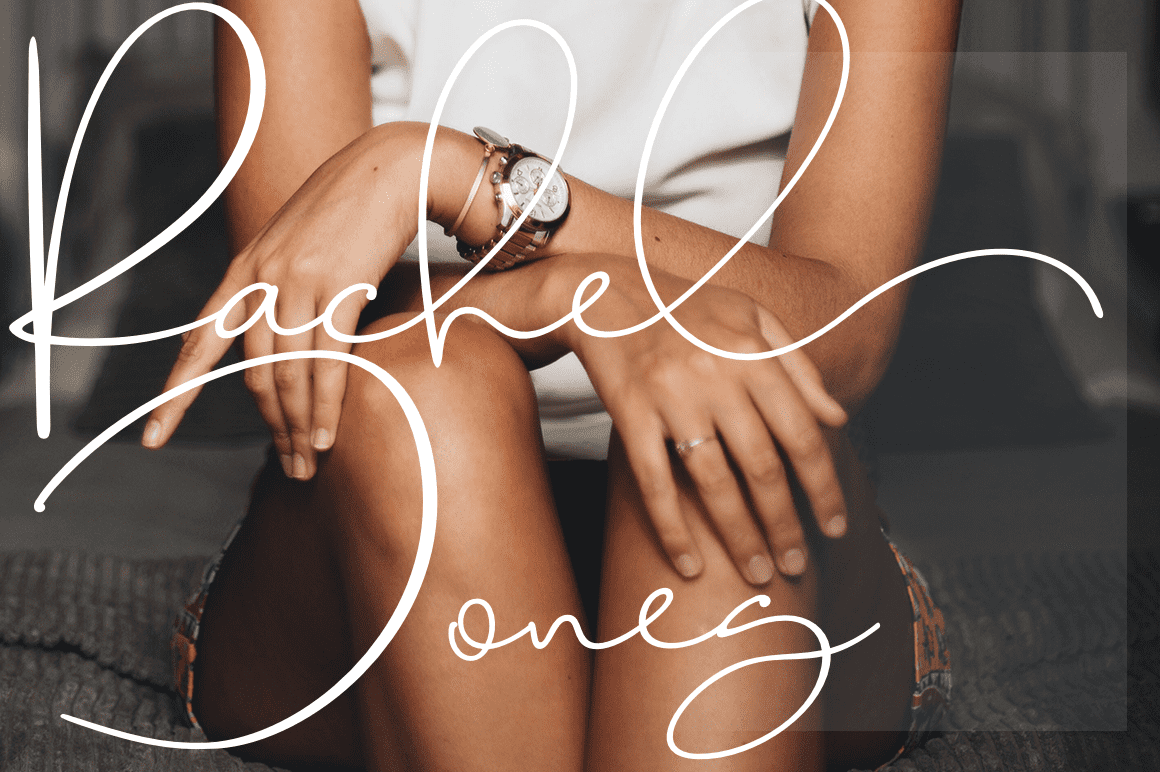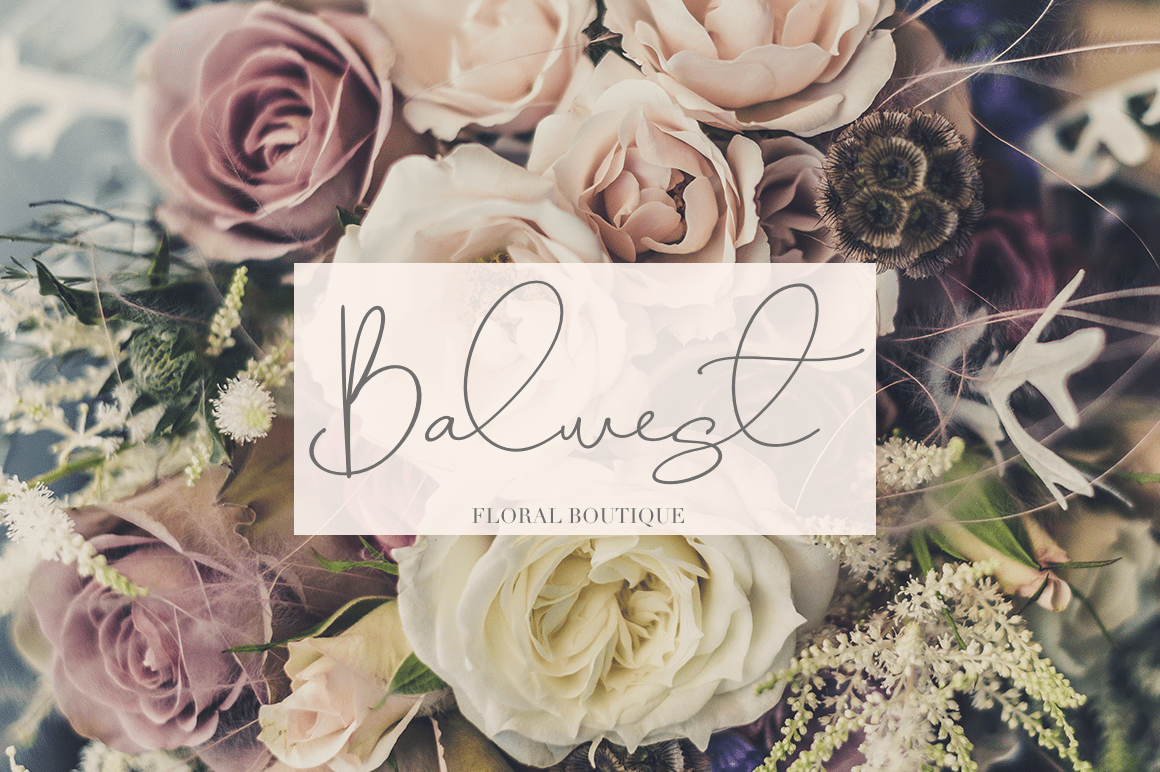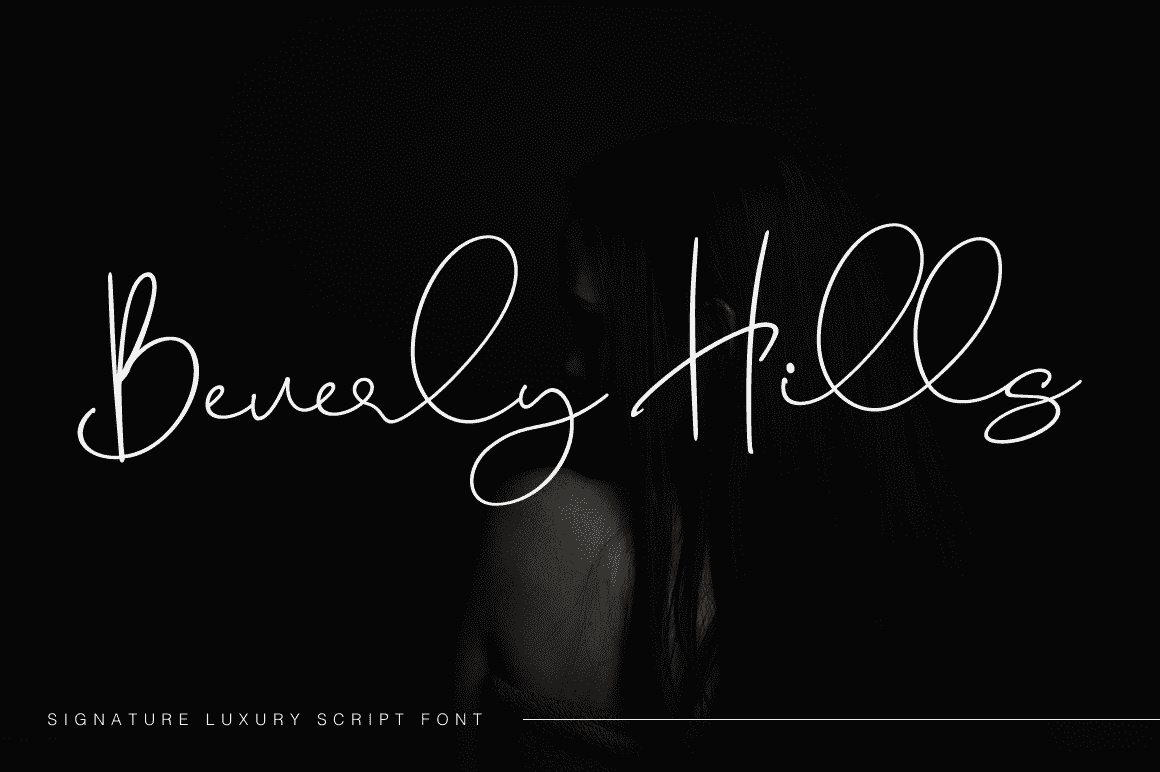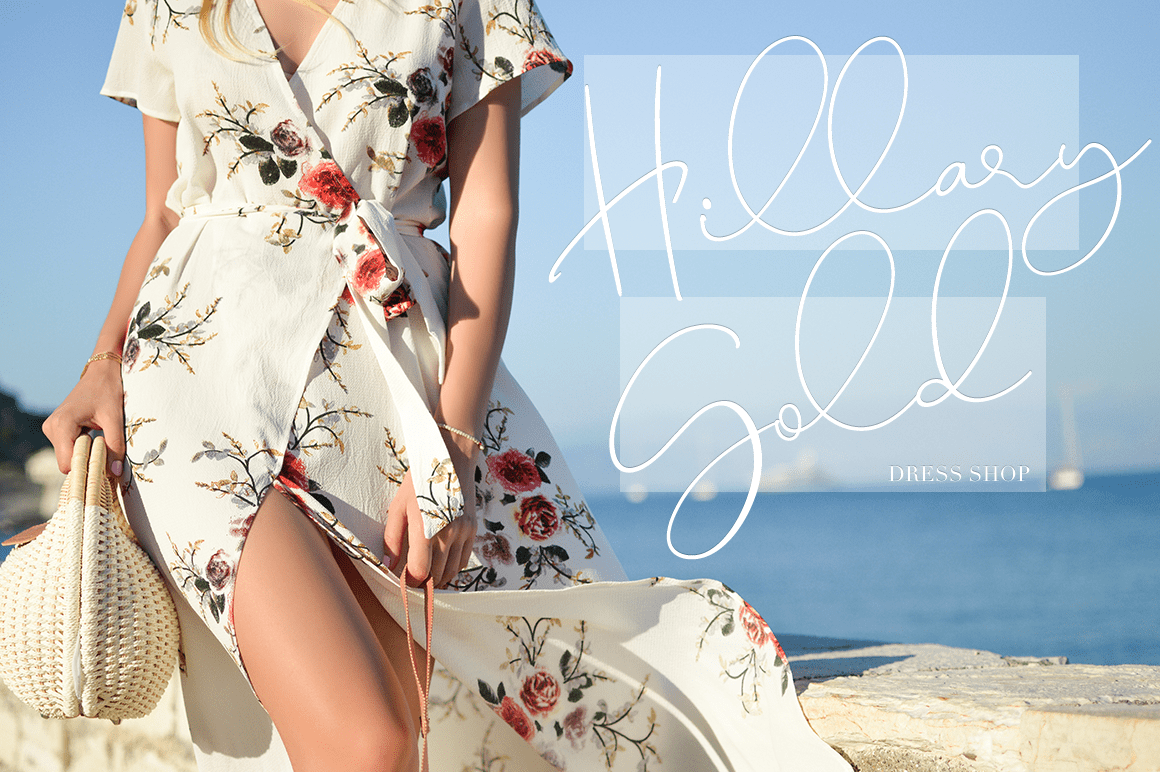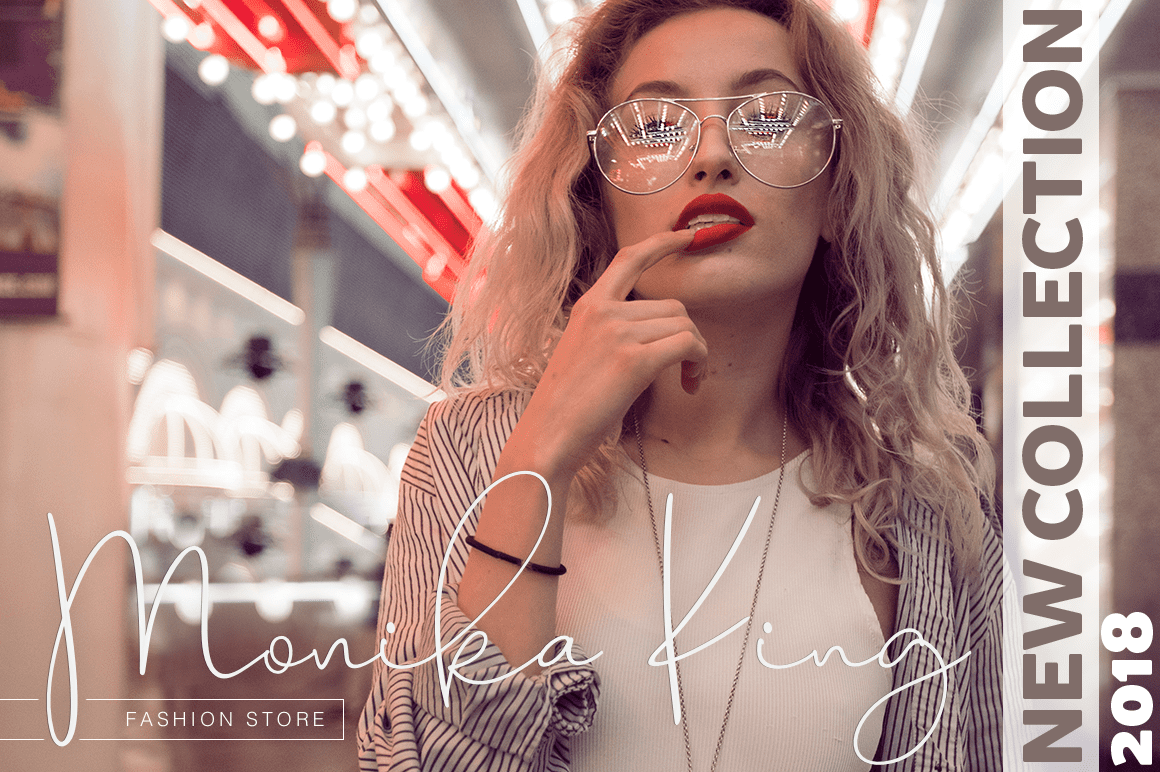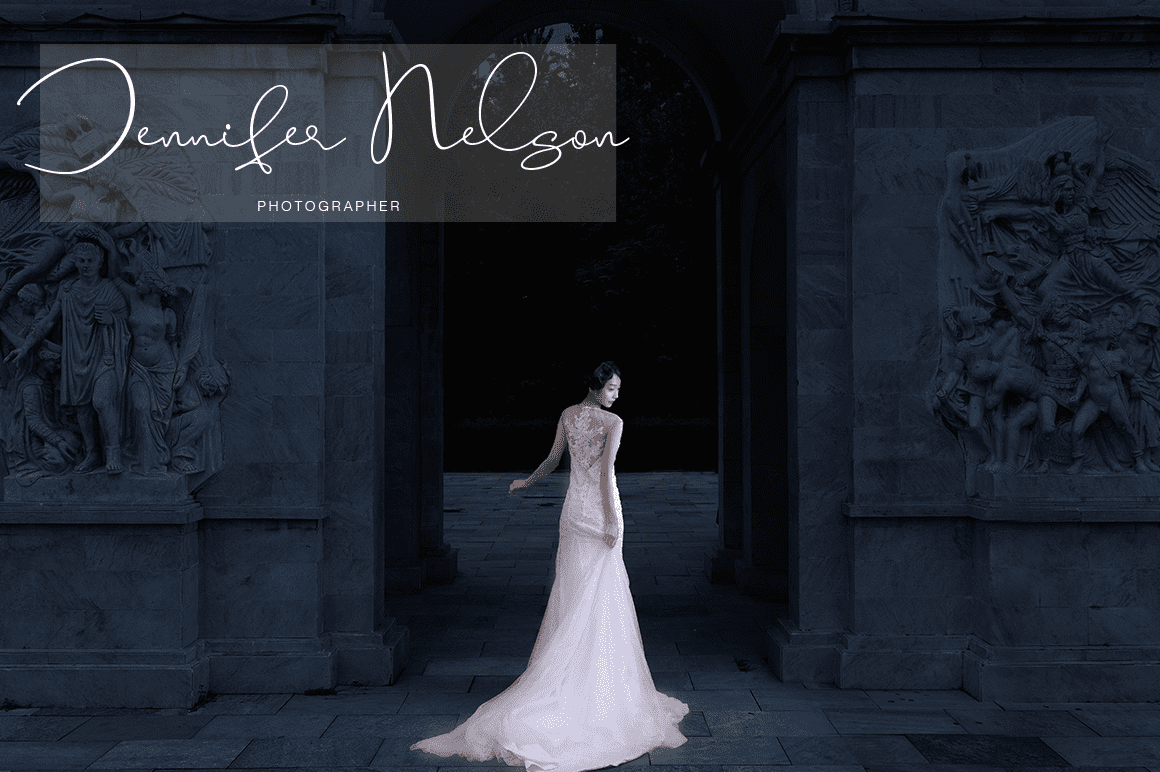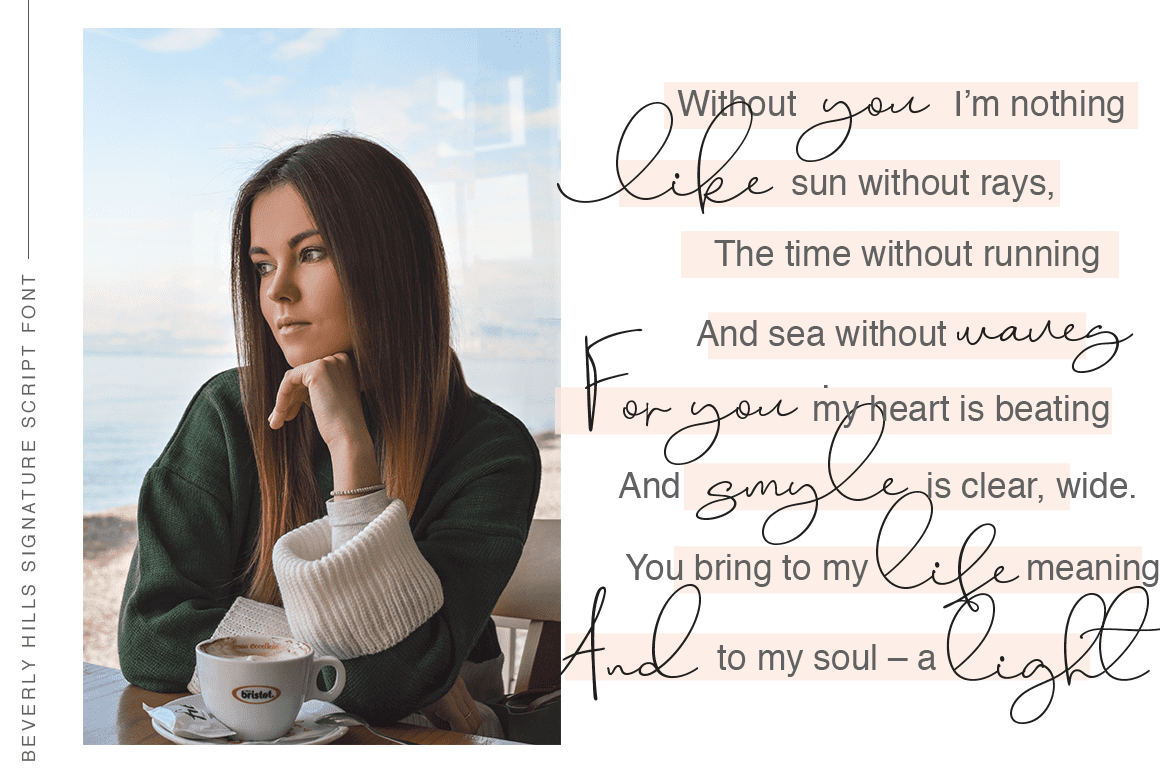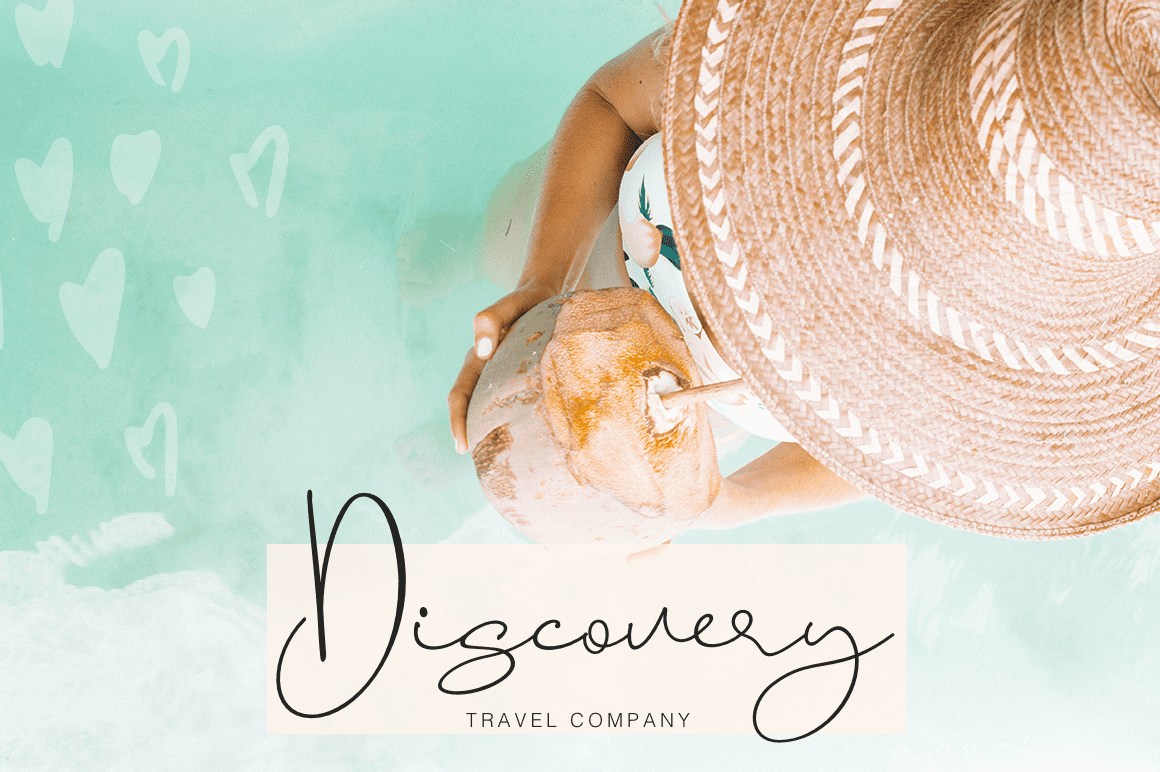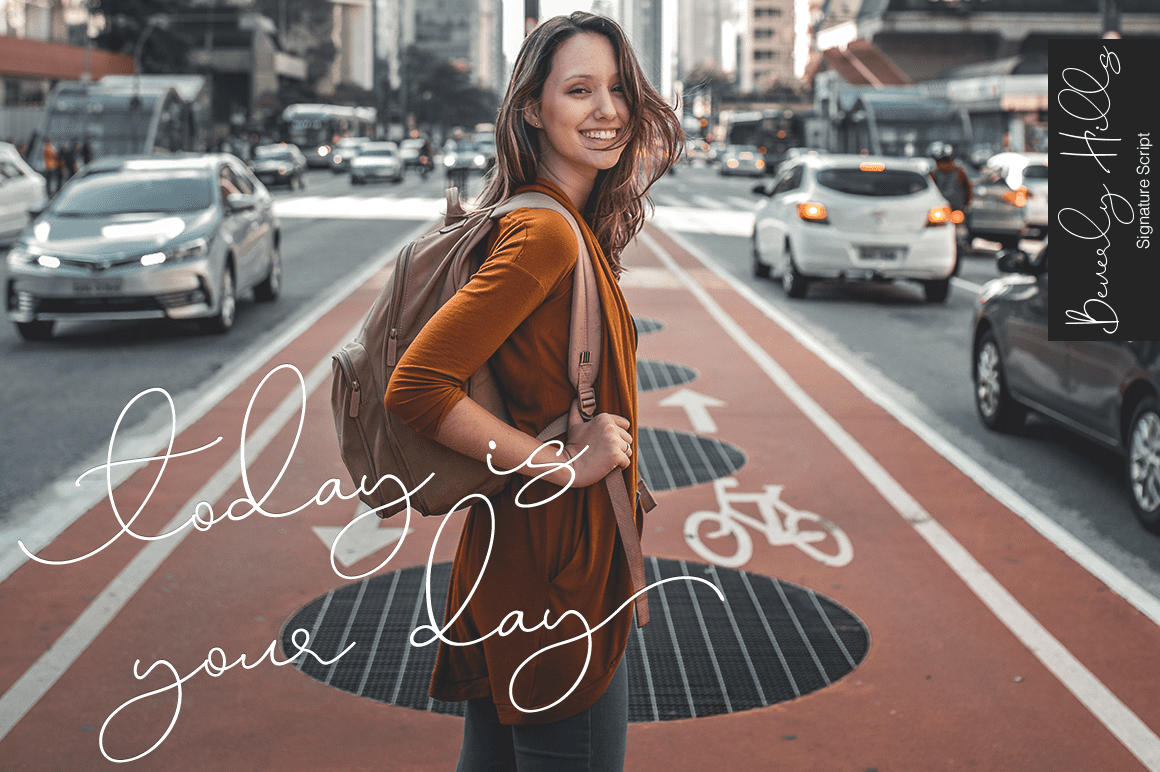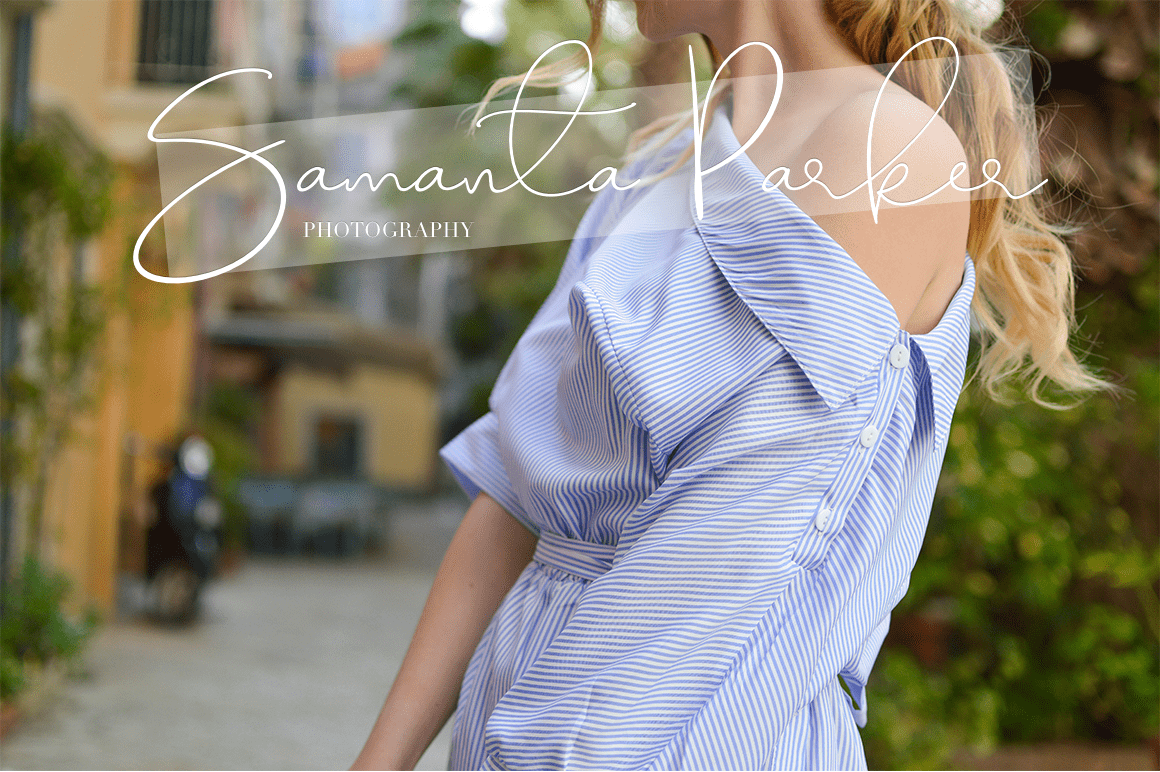
Beverly Hills (1 font)
This font is ideal for branding and decorating any of your projects.
It is perfect for book covers, blogs, logos, magazines, marketing, stationery, wedding invitations, or just creating beautiful frames for your home or business.